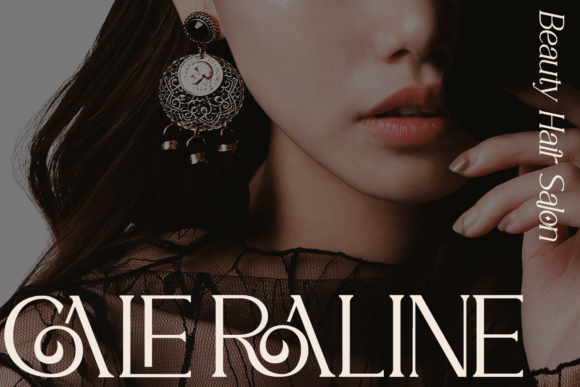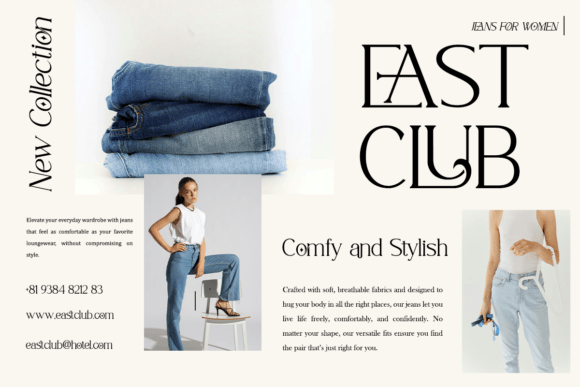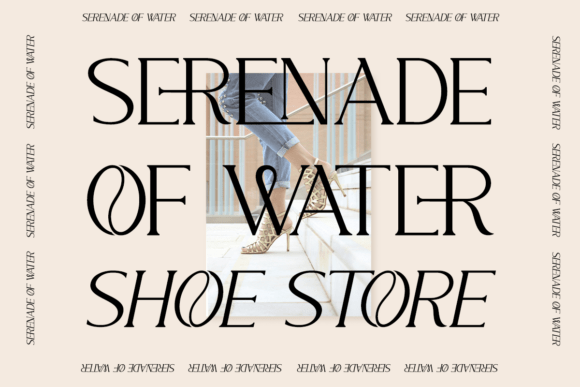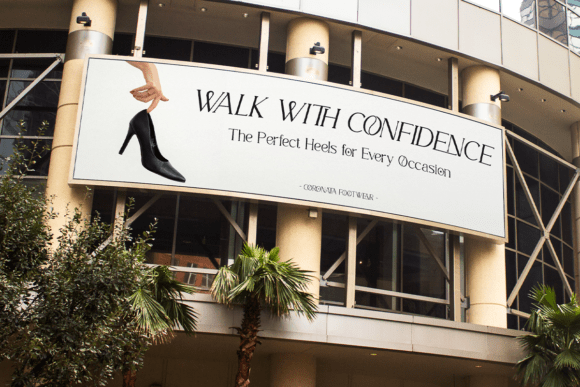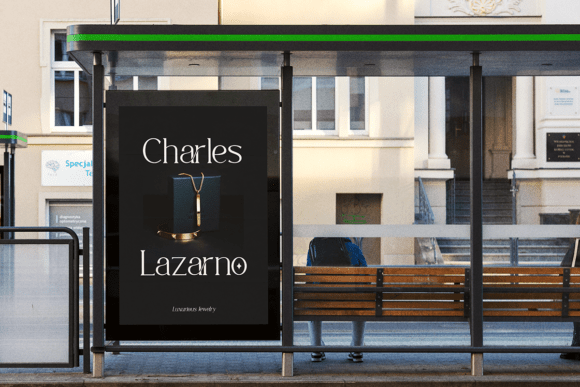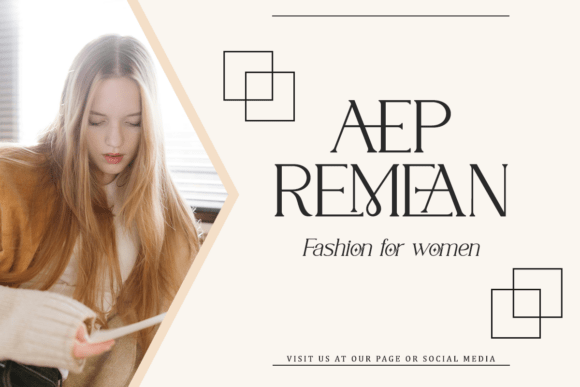
Introduction to Lumerita Font
As a designer, you know that finding the perfect font can be a game-changer for any creative project. Remember the moment when you finally stumbled upon that one font that brought your entire design together? For many of us, that moment is a mix of excitement and relief, knowing that our vision is now a step closer to becoming a reality. And that’s exactly what we’ll explore in this article – a high-quality design resource that’s about to become your new go-to: the Lumerita Font.
With its classy ligature serif design and versatile nature, Lumerita Font is the perfect addition to any design arsenal. Whether you’re working on a magazine layout, product packaging, or even a wedding invitation, this font is sure to bring a touch of elegance and sophistication to your work. In this article, we’ll dive deeper into what makes Lumerita Font so valuable for designers and explore its many uses and features.
Key Features of Lumerita Font
- Unique, modern design with a transparent background, perfect for layered compositions
- Perfect for designers and artists looking for a stylish, versatile font for their next project
Honest Review: Lumerita Font
I recently had the chance to work with the Lumerita Font, and I must say it’s been a game-changer for my creative projects. This design resource is truly a high quality addition to any project.
What works well: ✨ The Lumerita Font has a clean and modern design that makes it perfect for a wide range of creative projects. The transparent background is a great feature that allows for easy customization and blending with other design elements. The font also comes in a variety of weights and styles, making it easy to find the perfect fit for your project.
- Available in multiple weights and styles
However, there are a few limitations to consider: ⚠️ The Lumerita Font may not be suitable for projects that require a lot of bold, attention-grabbing text. Additionally, some users may find the font’s design to be a bit too minimalist.
The Lumerita Font is perfect for a variety of creative projects, including:
- Business presentations
- Graphic designs